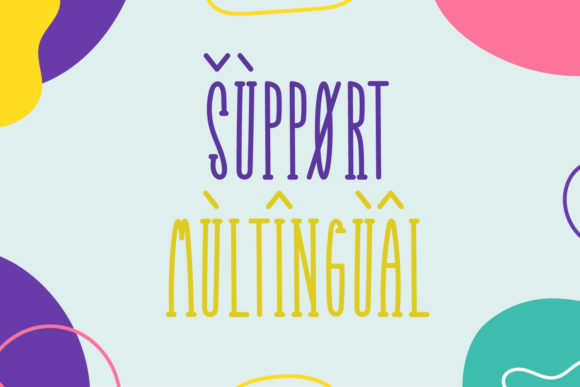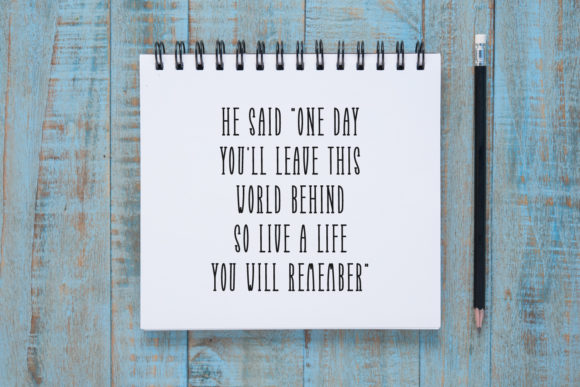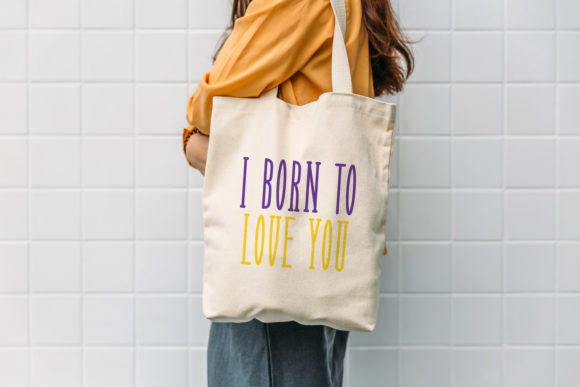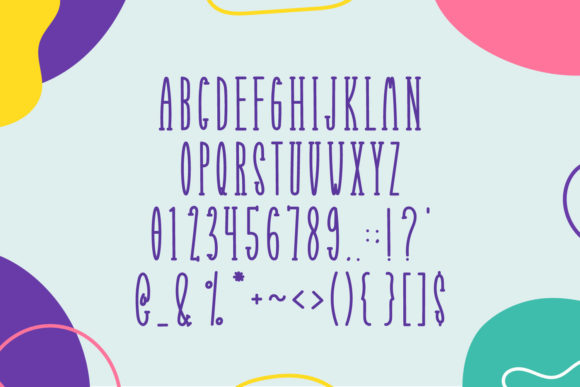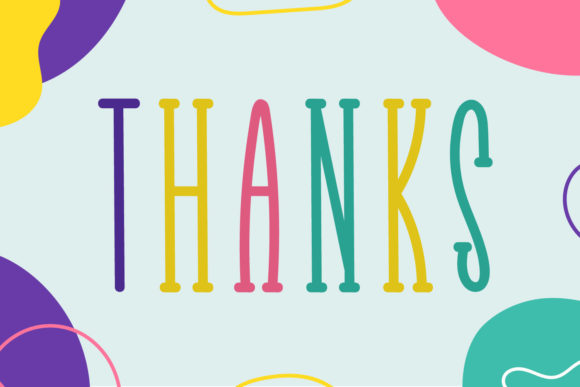
Hello Baby Font: The Perfect Choice for Children’s Designs
Hello Baby Font is a delightful, tall, and friendly display font that exudes joy and happiness. Its playful and cheerful design makes it an ideal choice for children’s themed designs, especially when paired with bright and vibrant colors. In this article, we’ll explore the features and benefits of Hello Baby Font, and how it can elevate your design projects.
Characteristics of Hello Baby Font
Hello Baby Font is a unique and charming display font that boasts several distinct characteristics. Its tall and slender letters give it a friendly and approachable feel, making it perfect for designs that require a playful and youthful touch. The font’s clean and simple design ensures that it remains legible, even at larger font sizes.
Key Features of Hello Baby Font
- Cute and Playful Design: Hello Baby Font features a cute and playful design that is sure to capture the attention of your audience.
- Tall and Friendly Letters: The font’s tall and slender letters give it a friendly and approachable feel.
- Perfect for Children’s Designs: Hello Baby Font is specifically designed for children’s themed designs, making it an ideal choice for projects such as children’s books, educational materials, and kids’ websites.
- Works Well with Bright Colors: The font’s simple design allows it to work well with bright and vibrant colors, making it perfect for designs that require a pop of color.
Benefits of Using Hello Baby Font
Using Hello Baby Font in your design projects offers several benefits. Its playful and cheerful design can help to:
- Capture the Attention of Your Audience: The font’s cute and playful design is sure to capture the attention of your audience, making it perfect for designs that require a bold and eye-catching approach.
- Create a Friendly and Approachable Feel: The font’s tall and slender letters give it a friendly and approachable feel, making it perfect for designs that require a warm and welcoming tone.
- Enhance Your Brand’s Personality: Hello Baby Font can help to enhance your brand’s personality and make it more relatable to your target audience.
Design Ideas Using Hello Baby Font
Hello Baby Font is a versatile font that can be used in a variety of design projects. Here are some design ideas to get you started:
- Children’s Books: Use Hello Baby Font to create engaging and interactive children’s books that are sure to delight young readers.
- Kids’ Websites: The font’s playful and cheerful design makes it perfect for kids’ websites, including educational websites and online games.
- Educational Materials: Hello Baby Font can be used to create educational materials such as worksheets, activity sheets, and educational posters.
- Crafting and DIY Projects: The font’s cute and playful design makes it perfect for crafting and DIY projects, including handmade cards, gift tags, and other paper crafts.
Tips for Using Hello Baby Font
Here are some tips for using Hello Baby Font in your design projects:
- Use it with Bright Colors: The font’s simple design allows it to work well with bright and vibrant colors, making it perfect for designs that require a pop of color.
- Experiment with Font Sizes: Hello Baby Font works well at larger font sizes, so don’t be afraid to experiment with different font sizes to create visual interest.
- Pair it with Other Fonts: The font’s clean and simple design makes it easy to pair with other fonts, allowing you to create unique and visually appealing typography.
Hello Baby Font is a delightful and charming display font that is perfect for children’s themed designs. Its playful and cheerful design makes it an ideal choice for projects that require a bold and eye-catching approach. With its tall and slender letters, clean and simple design, and versatility, Hello Baby Font is sure to become a favorite among designers and crafters.